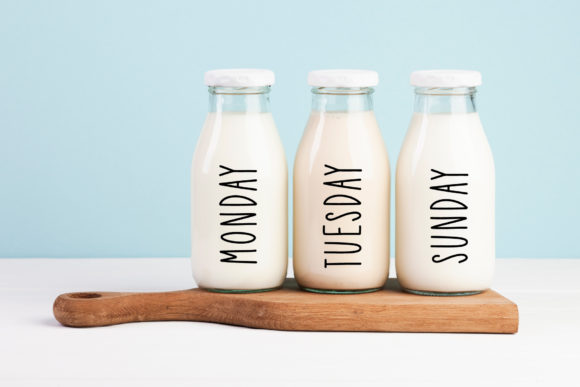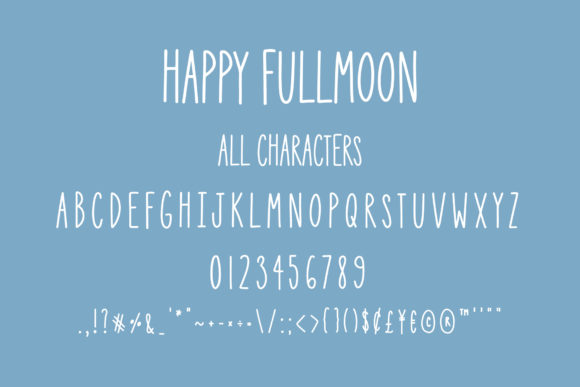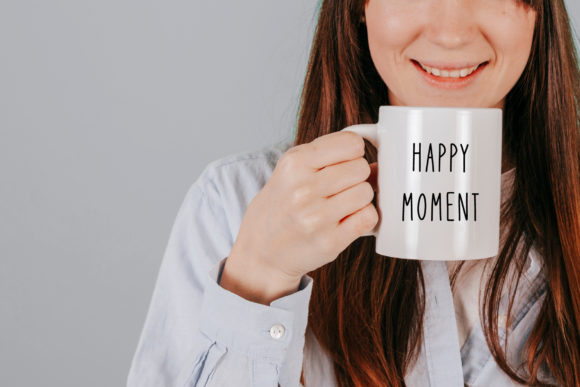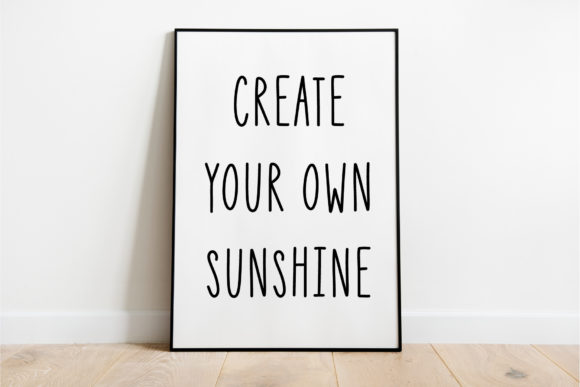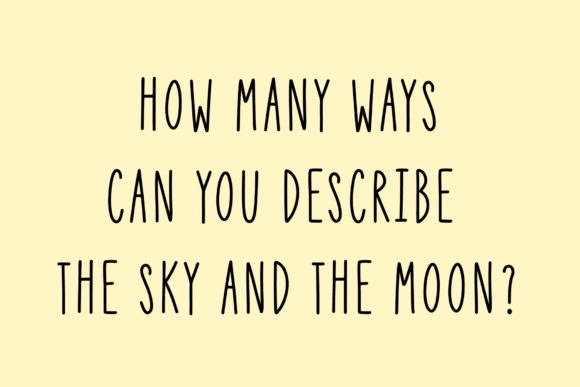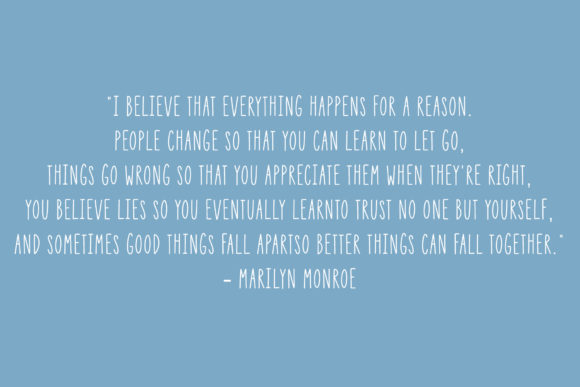
The Magic of Happy Full Moon Font: A Designer’s New Best Friend
I’ll never forget the time I was working on a project for a client who wanted a custom wedding invitation. I had the design concept nailed down, but I was struggling to find the perfect font. That’s when I stumbled upon Happy Full Moon Font. It was like a ray of sunshine on a cloudy day! ✨ The unique, handwritten style instantly captured the whimsical and romantic vibe I was going for. In this article, I’ll share my love for Happy Full Moon Font, its features, and how to make the most of it in your designs.
An Honest Review of Happy Full Moon Font
- ✨ Unique and eye-catching design: Happy Full Moon Font has a one-of-a-kind, thin and tall lettered handwritten style that sets it apart from other fonts.
- ✅ Versatility: Its natural and elegant look makes it suitable for a wide range of designs, from wedding invitations to branding and packaging.
- 💫 Easy to read: Despite its unique style, Happy Full Moon Font remains highly legible, even at smaller font sizes.
While Happy Full Moon Font is an amazing addition to any design project, there are a few things to keep in mind:
- ⚠️ Limited use in formal designs: Due to its elegant and whimsical nature, Happy Full Moon Font might not be the best fit for very formal or corporate designs.
- 🤔 May require adjustments for longer texts: As with any handwritten font, Happy Full Moon Font may require some tweaking to ensure optimal readability in longer blocks of text.
- Experiment with OpenType features like ligatures and stylistic alternates to add more flair to your text.
- Explore glyphs and OpenType features to unlock the full potential of Happy Full Moon Font.
The Story Behind Happy Full Moon Font
Happy Full Moon Font was created with the intention of capturing the magic and wonder of handwritten typography. Its designer aimed to craft a font that would evoke a sense of whimsy and romance, perfect for designs that require a touch of elegance and personality.
Q: What makes Happy Full Moon Font unique?
A: Happy Full Moon Font boasts a one-of-a-kind, thin and tall lettered handwritten style that sets it apart from other fonts.
Q: Is Happy Full Moon Font difficult to read?
A: No, Happy Full Moon Font is designed to be highly legible, even at smaller font sizes.